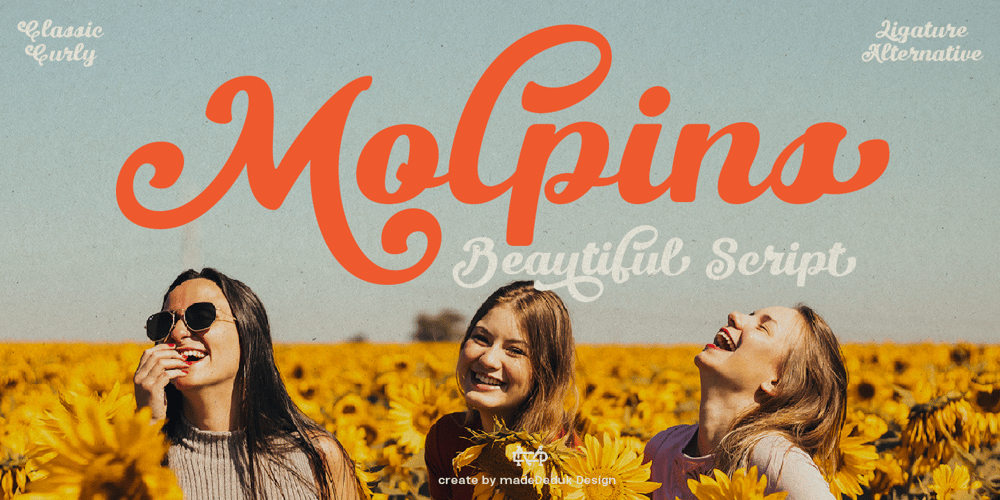
Molpins Font Family was designed by madededuk and published by madeDeduk. Molpins contains 1 styles and family package options. Molpins is a beautiful script font. Comes with curly style with much alternative and ligature. This font perfect for poster design, book covers, merchandise, fashion brands, advertising, magazines, album covers, wedding invitation and more.Feature Uppercase & Lowercase Number & Symbol International Glyphs Multilingual support Alternative Ligature Thanks so much for checking out my shop and feel free to drop us a message any time.Hope you enjoy it.